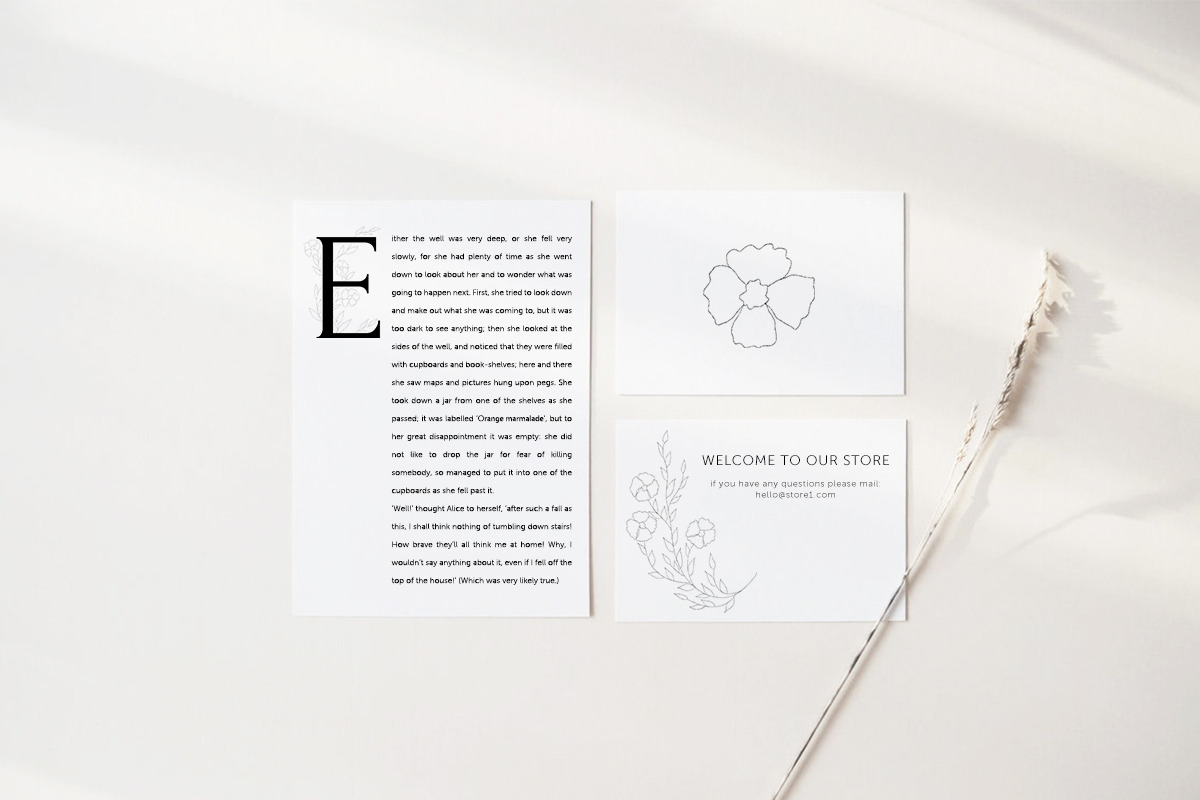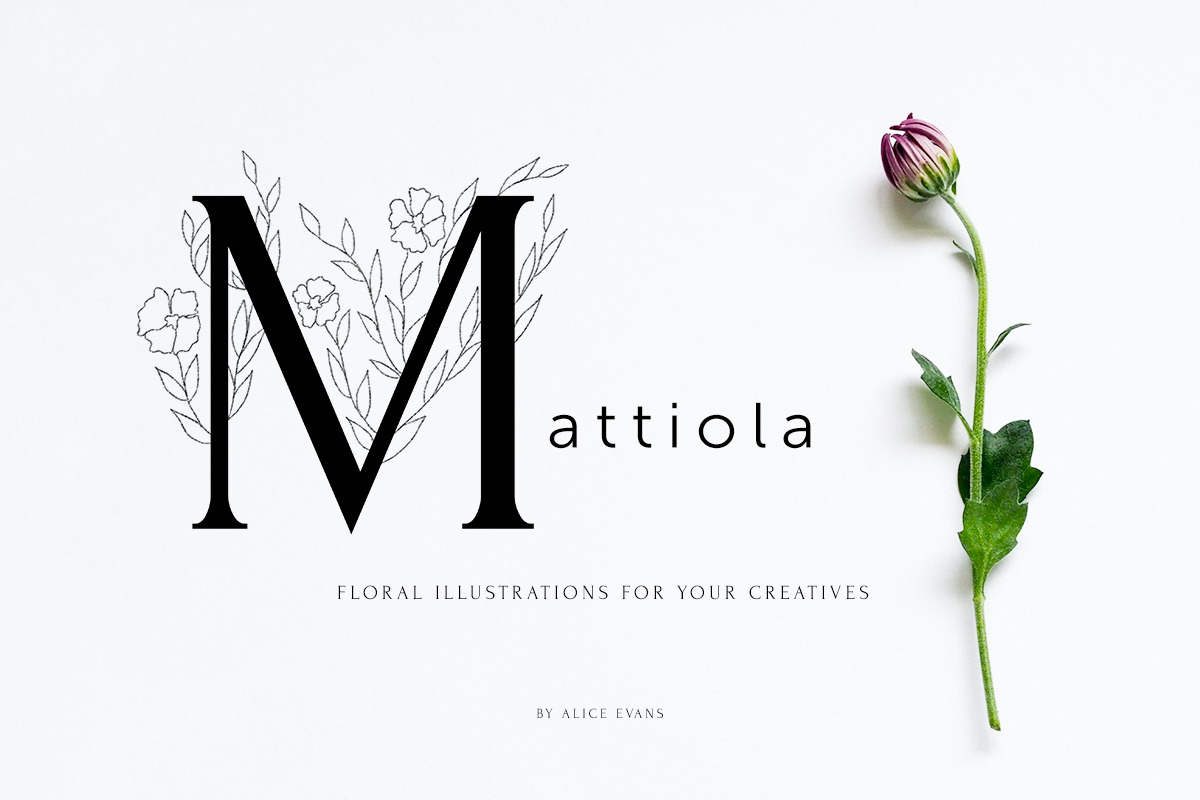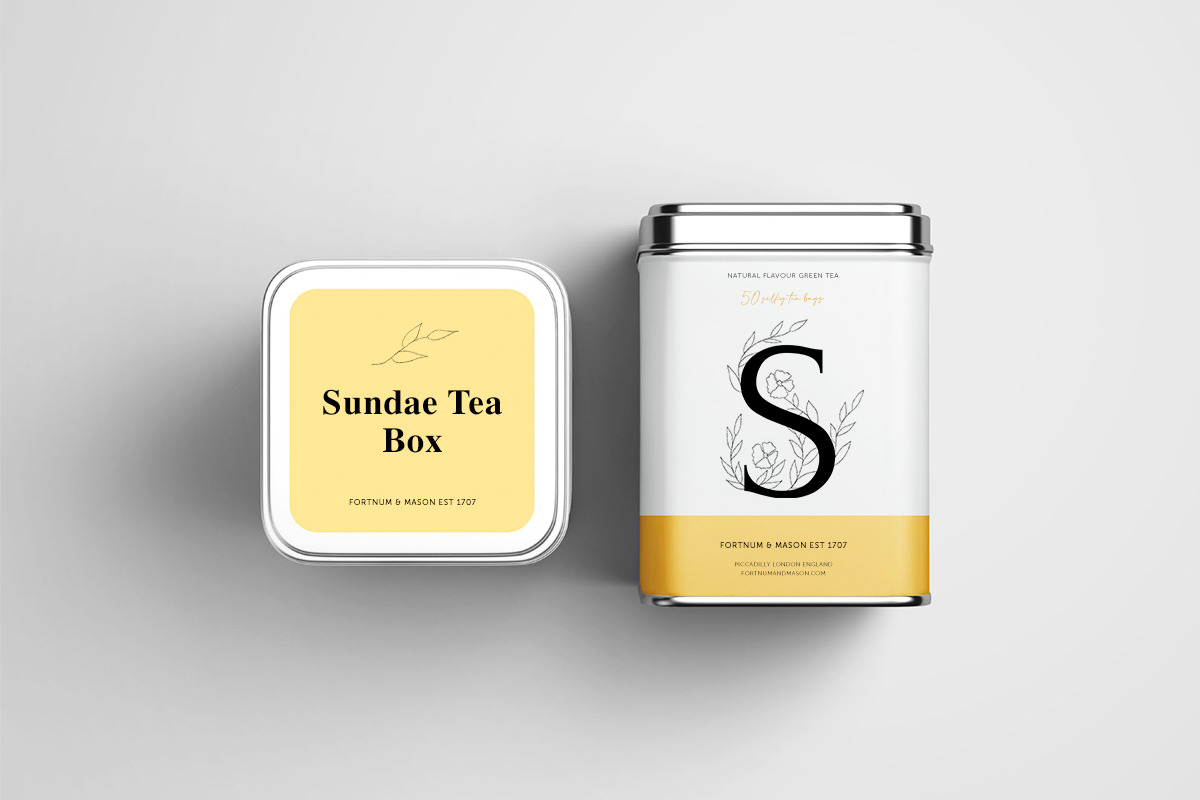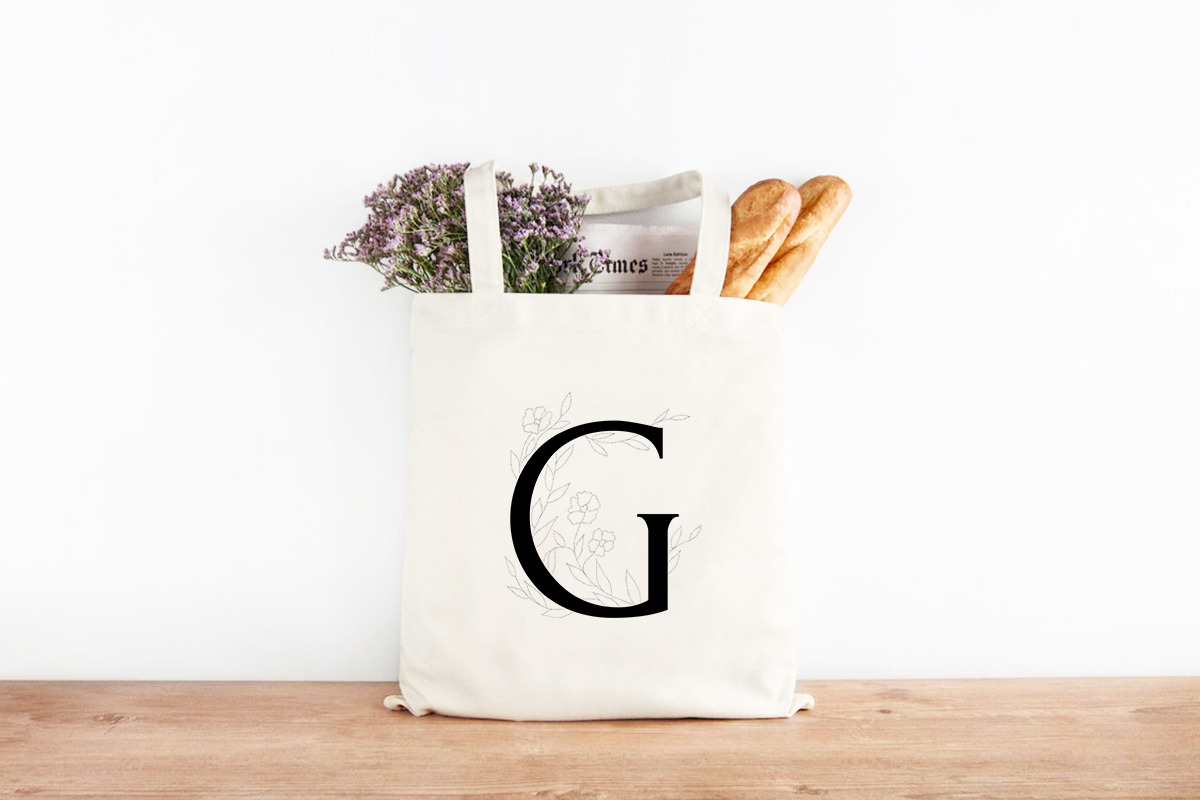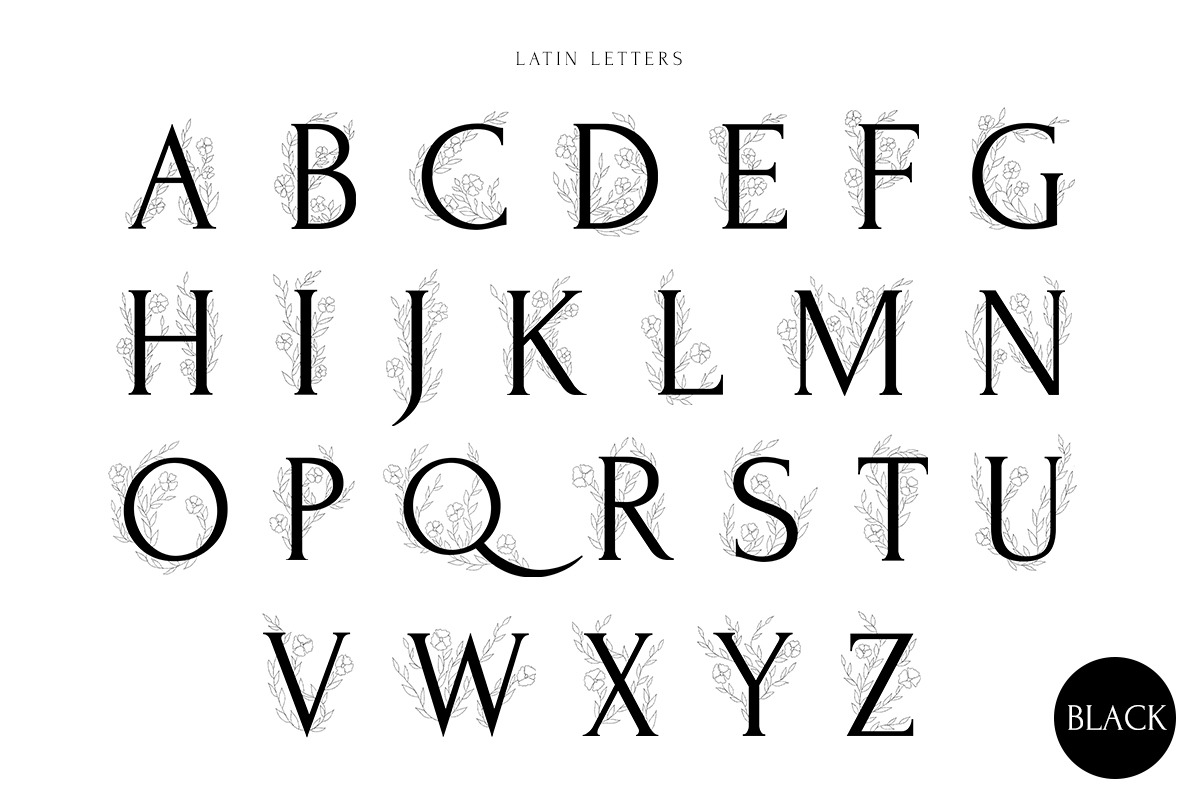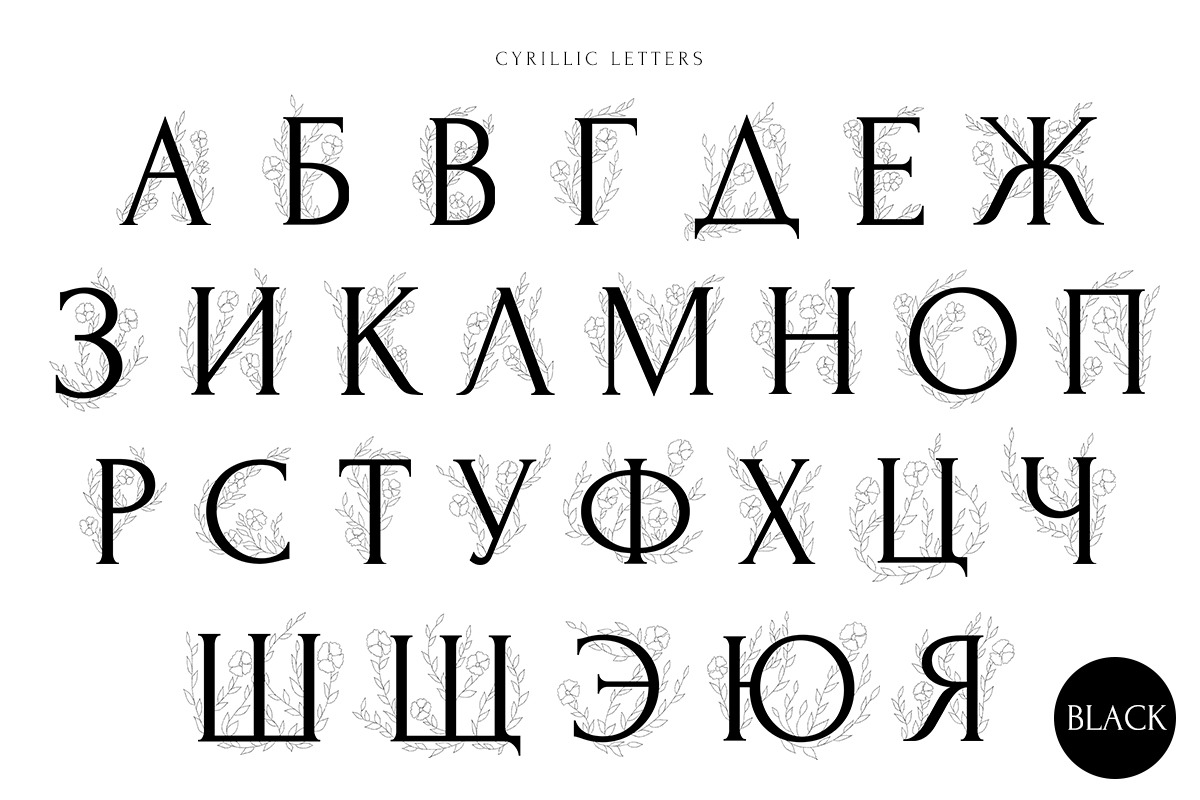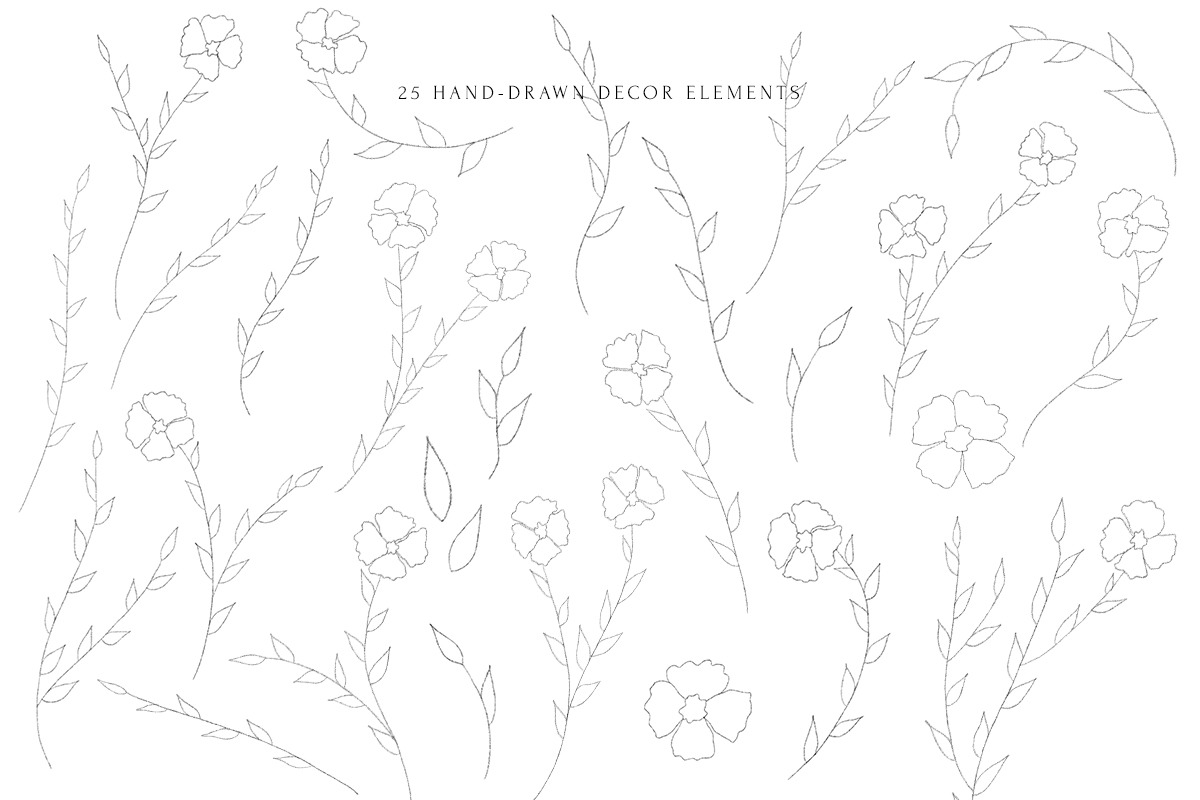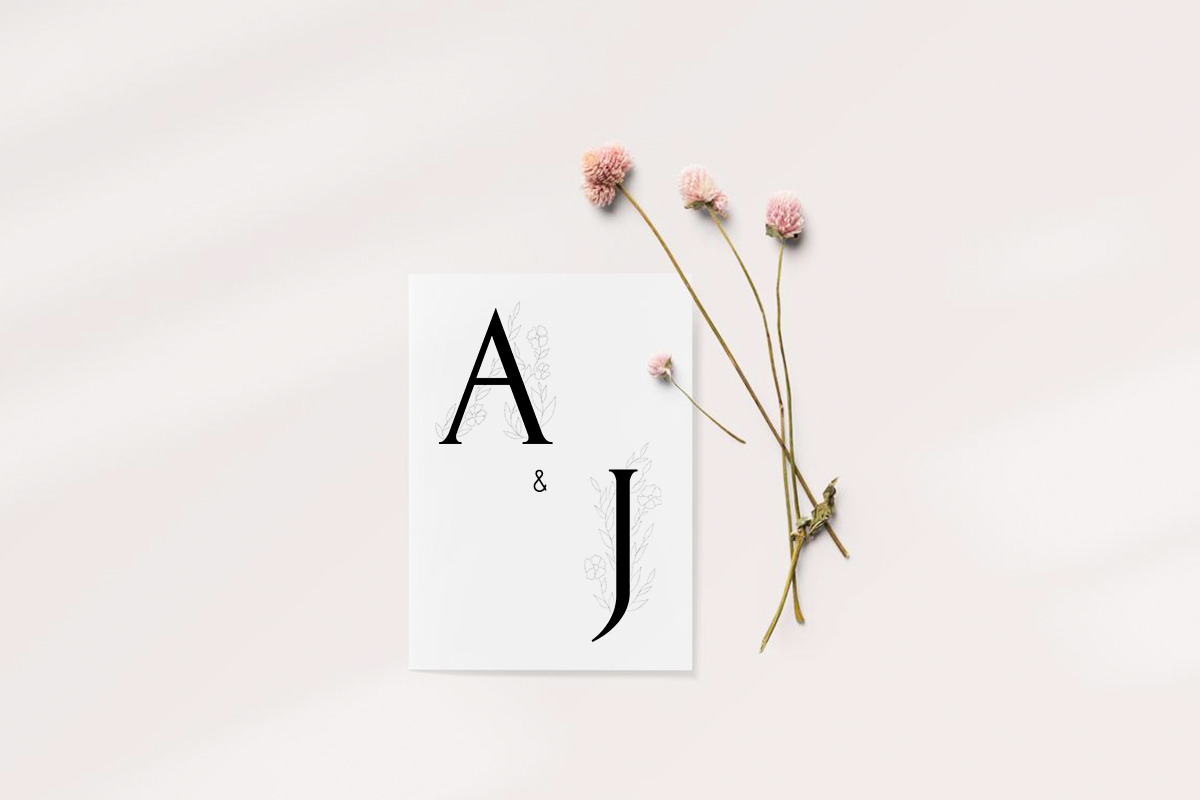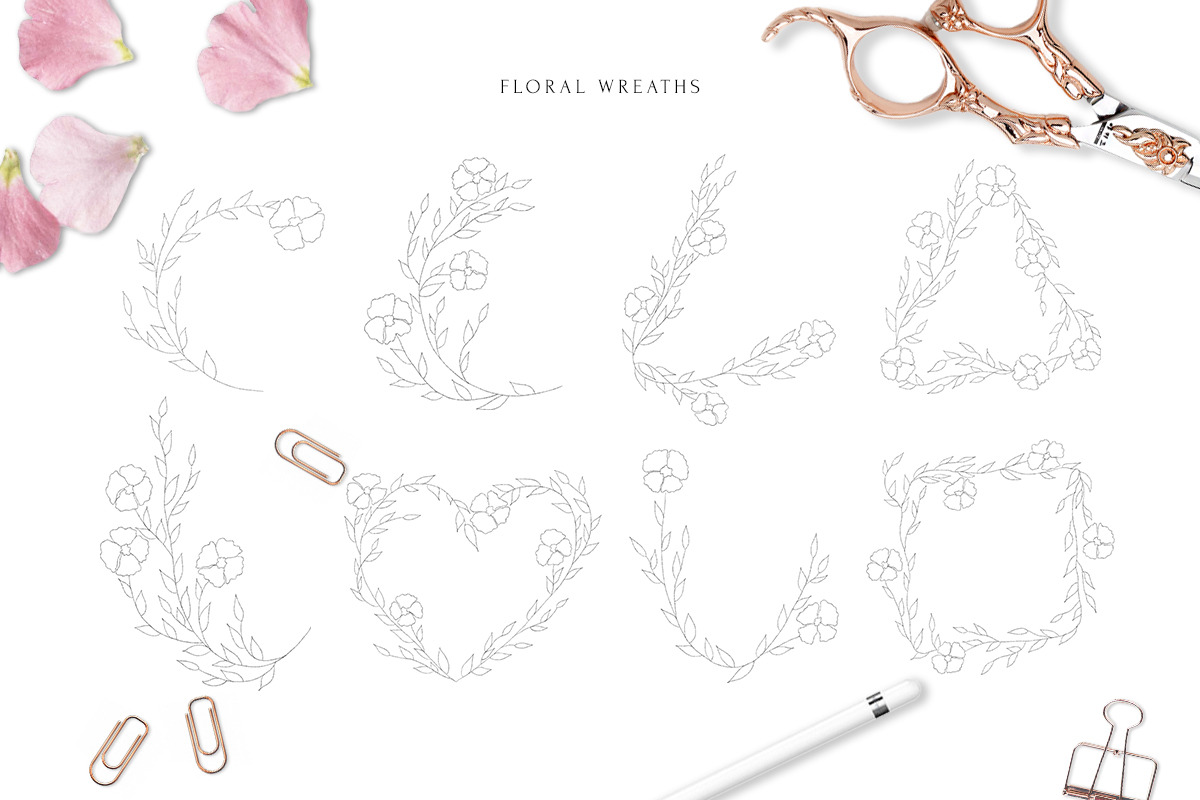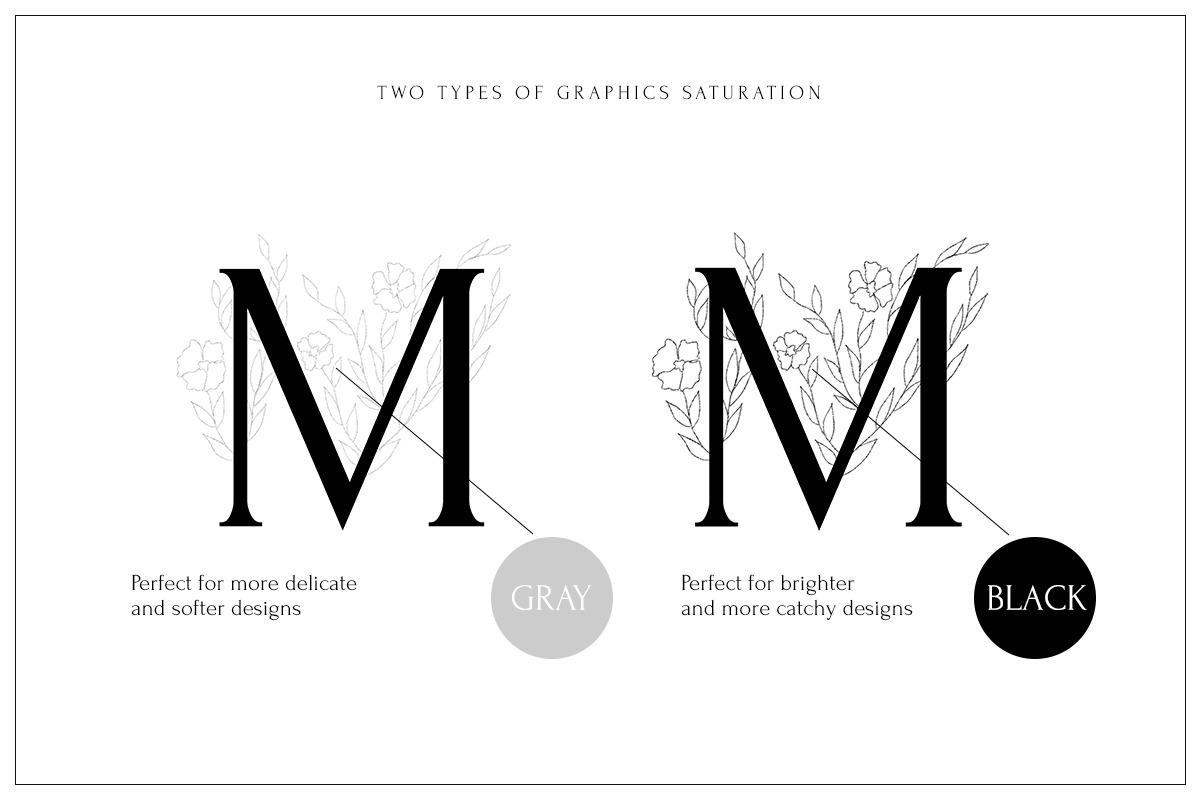
Mattiola font Floral illustrations
Welcome to my Mattiola typeface project!
This is a floral illustrated characters of Latin and Cyrillic alphabet in .PSD format, which support two types of decor saturation if case you find it too bright or too light depending from your design needs.
I have added to this pack also a 26 decor elements and floral wreaths to connect your creatives with letters by similar graphics. Perfect for branding, event decor, printing cards and invitations.